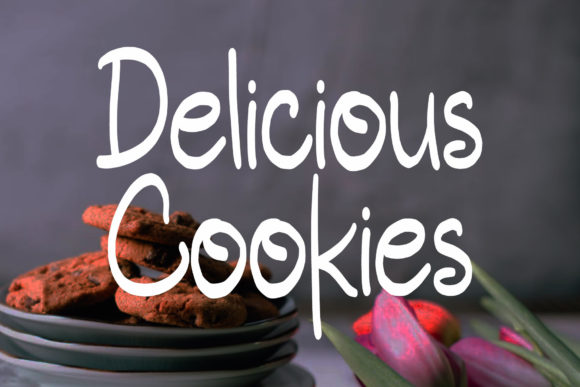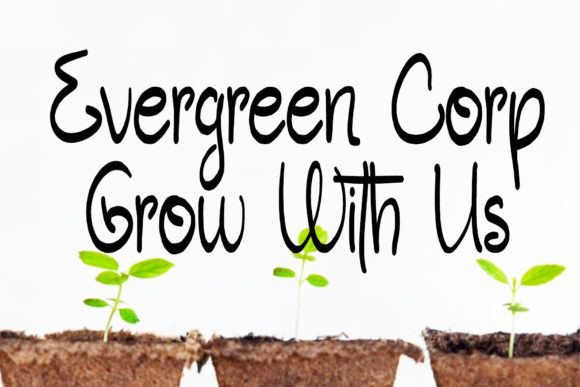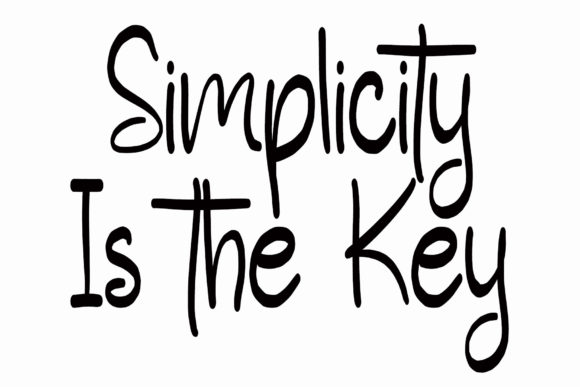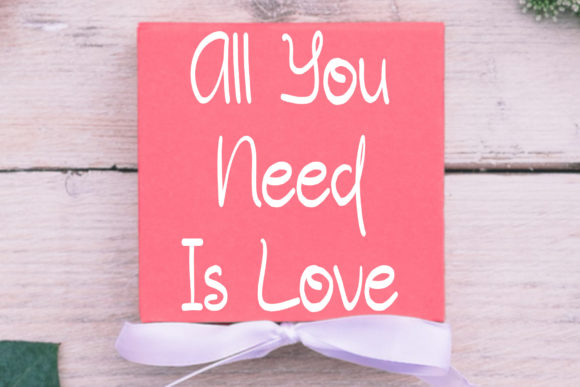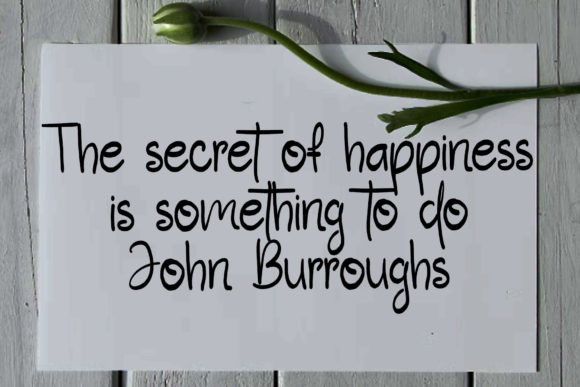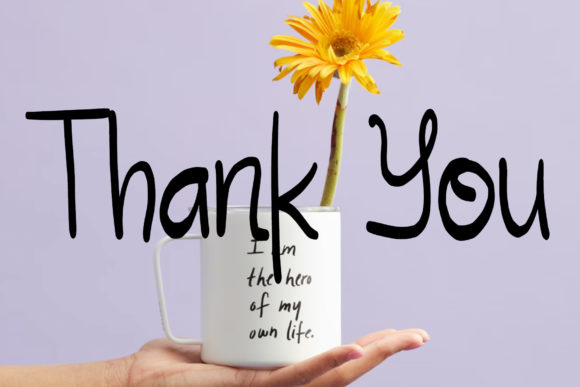
Chesterfield Font
About Chesterfield Font
“Chesterfield” isn’t just a font—it’s a sweet, simple, and trendy handwritten typeface that adds a delightful touch to any design. With its charming appearance and casual vibe, “Chesterfield” is the perfect choice for a wide array of projects that require a relaxed and inviting aesthetic.
Crafted with attention to detail, this font exudes warmth and personality, making it ideal for wedding invitations, thank you cards, quotes, greeting cards, logos, business cards, and more. Its versatility ensures it complements various design themes and concepts, adding a casual yet stylish flair to every project it graces.
Whether you’re conveying heartfelt sentiments or establishing brand identity, “Chesterfield” effortlessly enhances your designs with its trendy look and friendly demeanor. Its simple yet appealing style adds visual interest and charm, making your creations stand out with ease.
Moreover, “Chesterfield” strikes a perfect balance between readability and style. Its well-crafted letterforms ensure clear communication of your message, while its sweet and casual vibe adds a welcoming touch to your designs.
In summary, “Chesterfield” is more than just a font—it’s a versatile and charming tool that empowers designers to create memorable and inviting designs with ease. Embrace its sweet and simple charm and watch as it brings a casual touch to all of your creations, infusing them with warmth and personality.